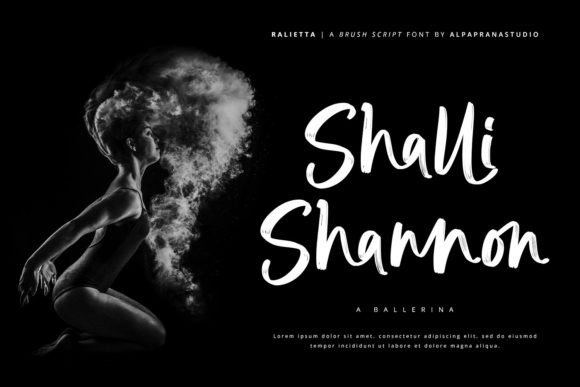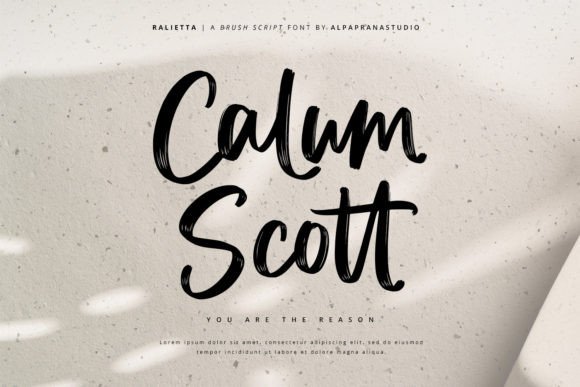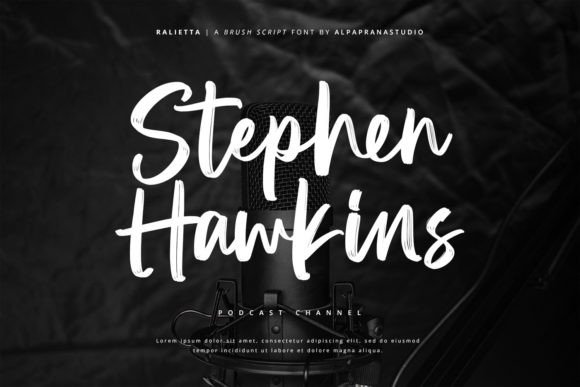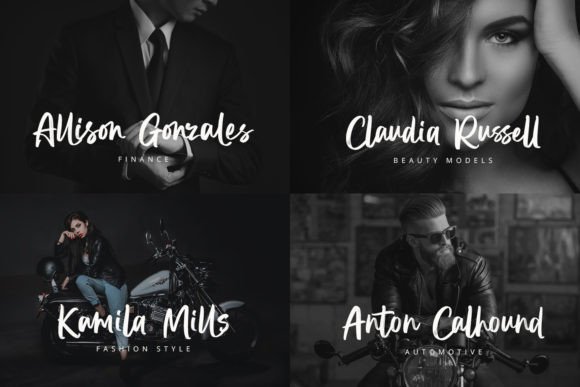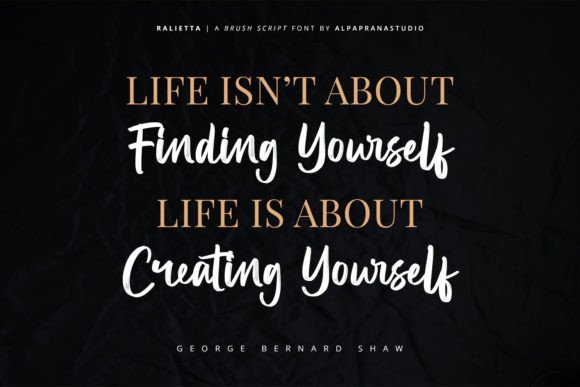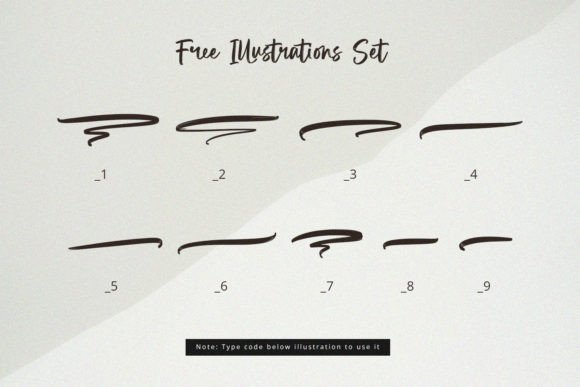
Introduction to Ralietta Font
Ralietta is a brush script font with a natural and modern look.
Key Features of Ralietta Font
Why Choose Ralietta Font?
Ralietta Font offers exceptional quality and versatility, making it a valuable addition to your design toolkit. Whether you’re creating for personal projects or commercial use, Ralietta Font delivers professional results.